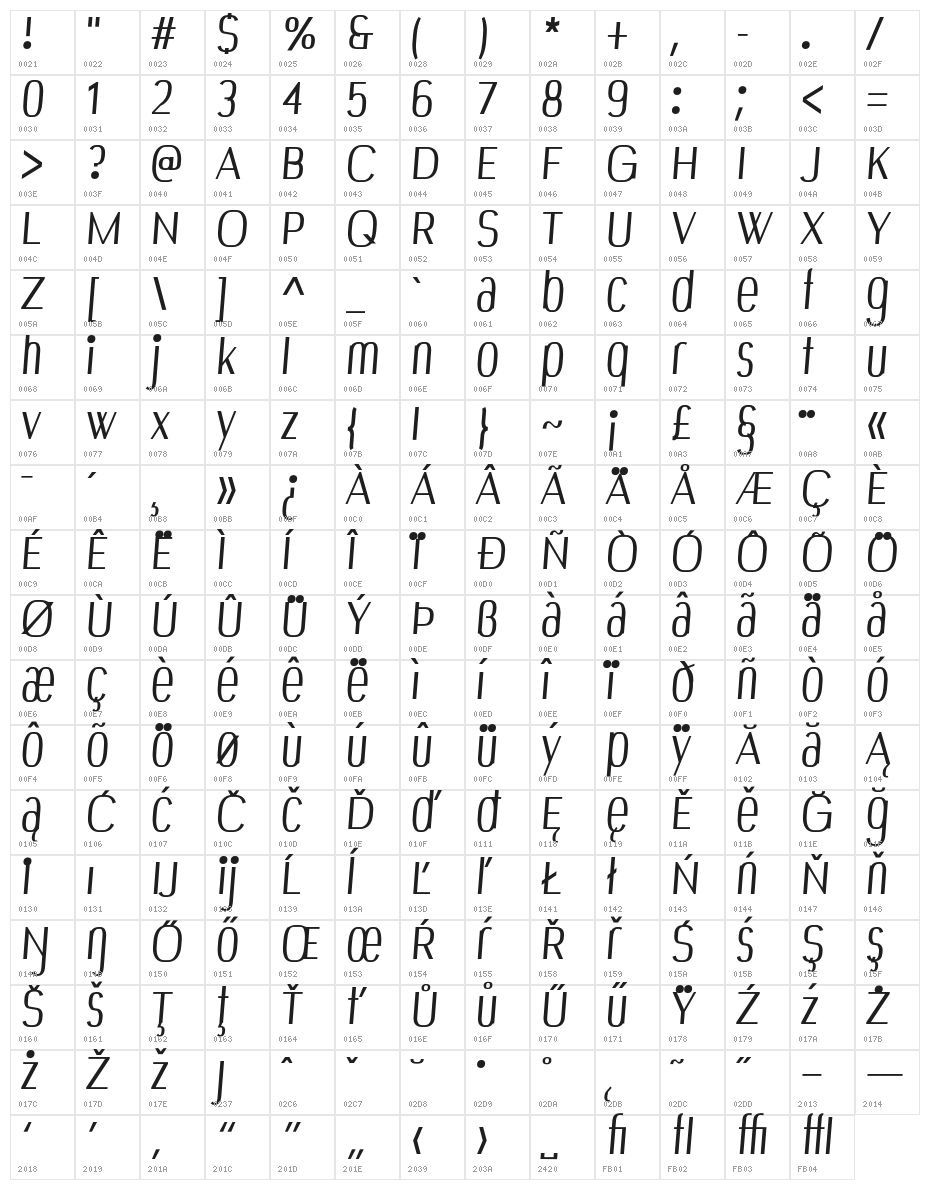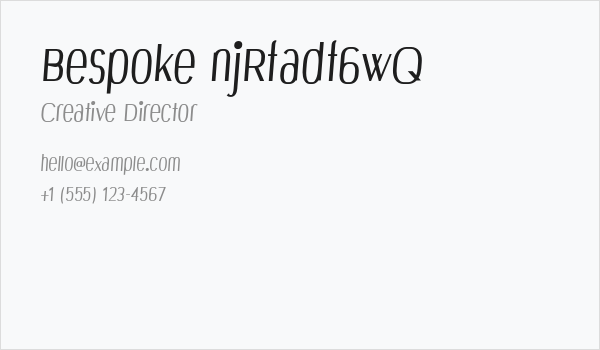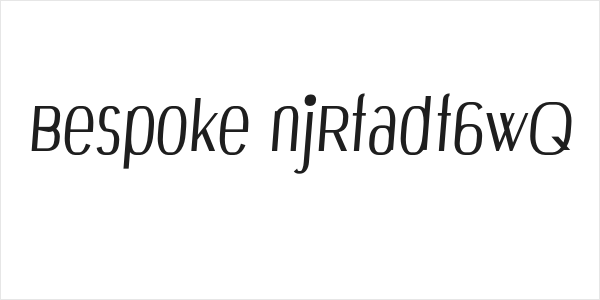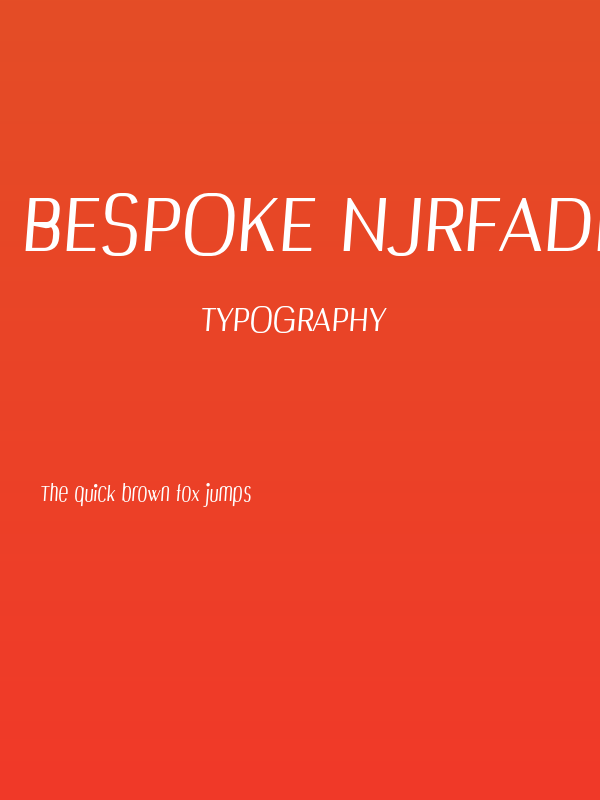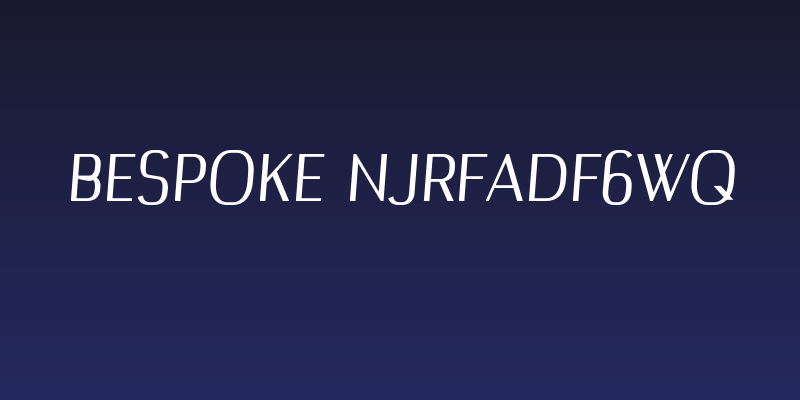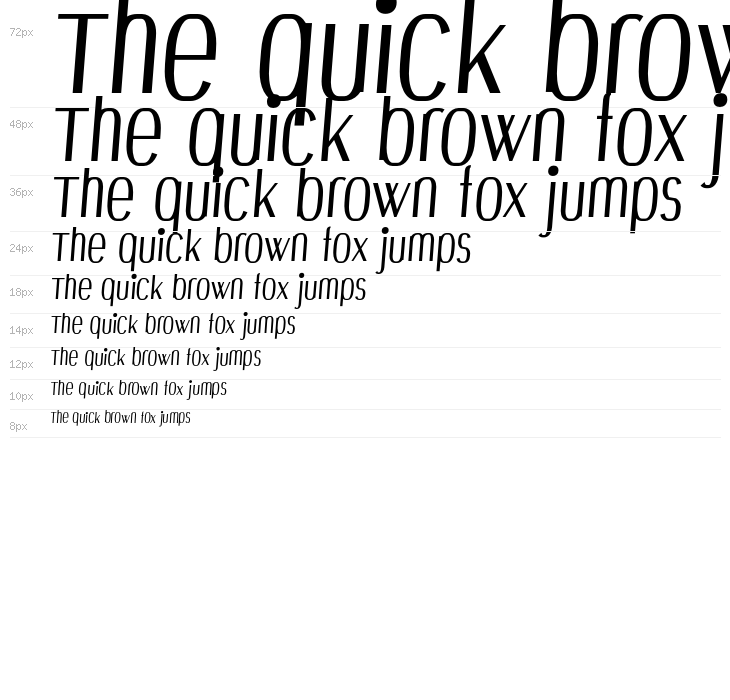
Bespoke njRfadf6wQ Font
Bespoke njRfadf6wQ Description
This font exhibits a sleek and modern design, characterized by its clean lines and slightly condensed letterforms. The uppercase letters are tall and elegant, with a uniform stroke width that conveys a sense of precision and professionalism. The lowercase letters maintain a consistent style, offering a harmonious blend with the uppercase. Numbers and special characters are crafted with the same attention to detail, ensuring readability and versatility. The overall appearance is contemporary, making it suitable for a wide range of applications where clarity and style are paramount.
| Proposed Projects | Ideal for branding, advertising, editorial design, and digital interfaces where a modern and professional look is desired. |